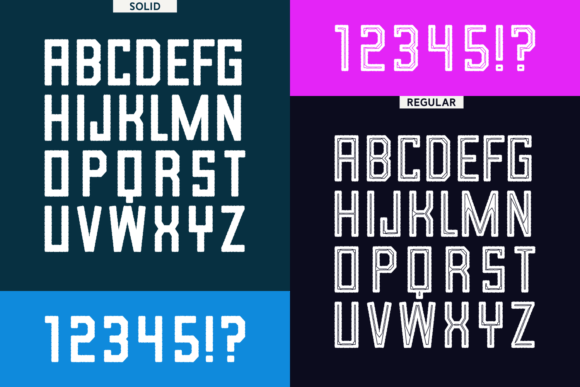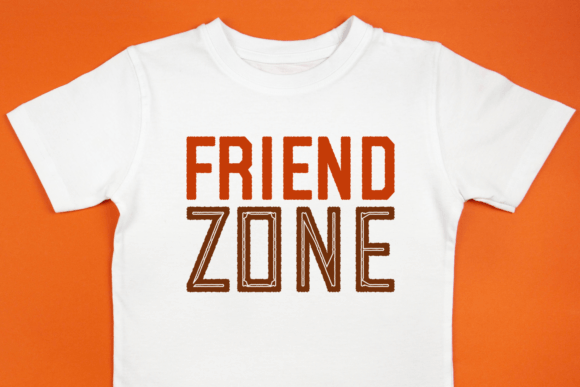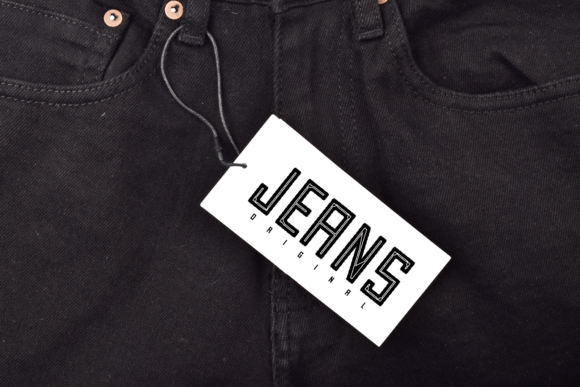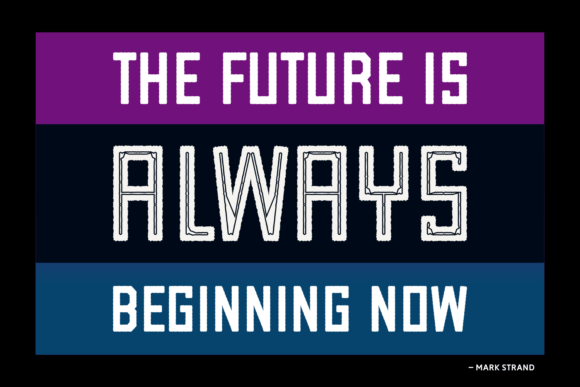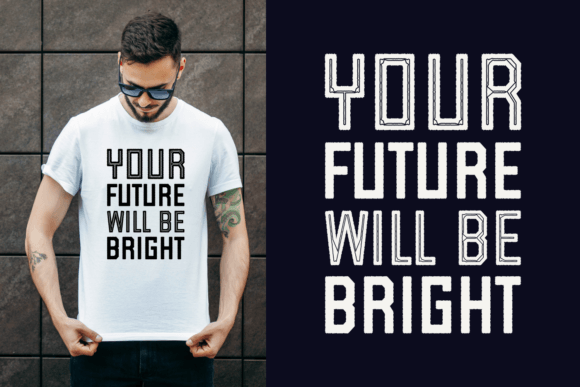
Introduction to Never Sure Font
Have you ever been in the middle of a creative project, pouring your heart and soul into it, only to feel like something’s missing? You know, that spark that sets your design apart from the rest? For designers, this is a familiar feeling, and it’s exactly why we’re excited to introduce you to the Never Sure Font.
This trendy display font is designed to elevate your creative ideas to new heights. With its cool and stylish vibe, the Never Sure Font is the perfect design resource to add a touch of sophistication to your next project. Whether you’re working on a graphic design, a logo, or even a social media post, this high-quality font is sure to make a statement.
Key Features of Never Sure Font
- Unique, handcrafted font with a transparent background, perfect for adding a personal touch to designs.
- Never Sure Font is designed to be highly customizable, allowing users to easily adjust font styles and sizes.
Honest Review: Never Sure Font
I recently had the chance to work with the Never Sure Font for a creative project and I must say, it was a delightful experience. This free download is a great addition to any designer’s toolkit, offering a high quality and versatile design resource.
- ✨ The Never Sure Font comes with a transparent background, making it easy to customize and use in various design contexts.
- ✨ The font is highly customizable, allowing for a range of styles and looks to suit your creative vision.
- ⚠️ The Never Sure Font may not be suitable for complex or large-scale designs, as it can be prone to pixelation at certain font sizes.
- ⚠️ The font’s versatility can also make it feel a bit generic or unoriginal in certain contexts.
Overall, I was impressed with the Never Sure Font’s potential and flexibility. While it may have some limitations, it’s a great resource to have in your design arsenal, especially for smaller or more experimental projects.
Tips for Getting the Most Out of Never Sure Font
Experiment with different font sizes, colors, and styles to create visually appealing designs. Combine the Never Sure Font with other design elements to add depth and interest to your creative project.
The Never Sure Font is ideal for creative projects such as logos, business cards, and social media graphics. Its high-quality design and transparent background make it a versatile resource for designers and non-designers alike.